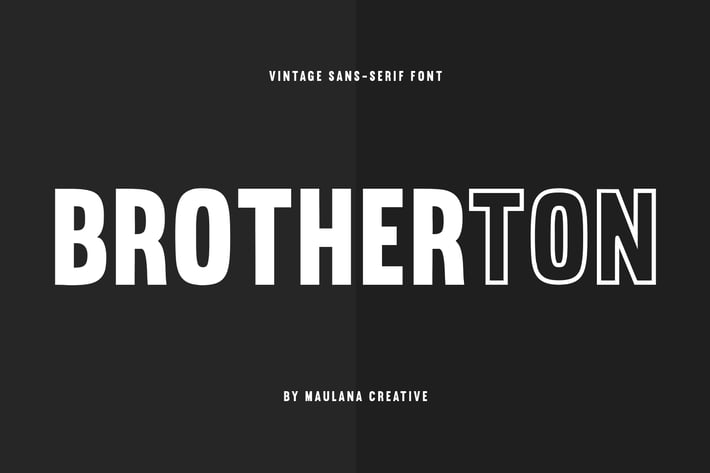
Brotherton Vintage Sans Serif Font Typeface
Brotherton is a vintage sans serif with Regular and Outline font files. Brotherton is perfectly suited to branding, logos, magazines, films, website, headlines, titles, captions, games, apps, posters, t-shirts and more.